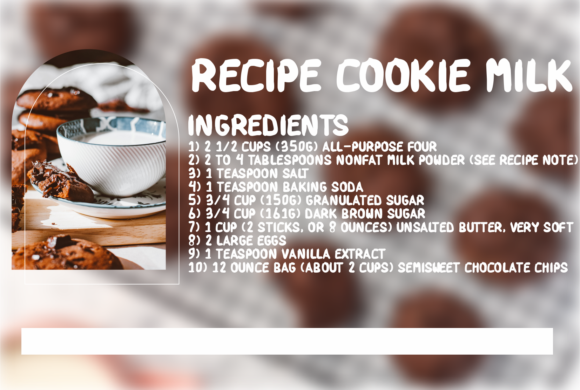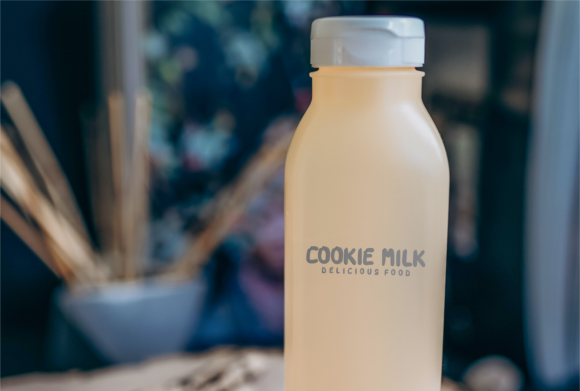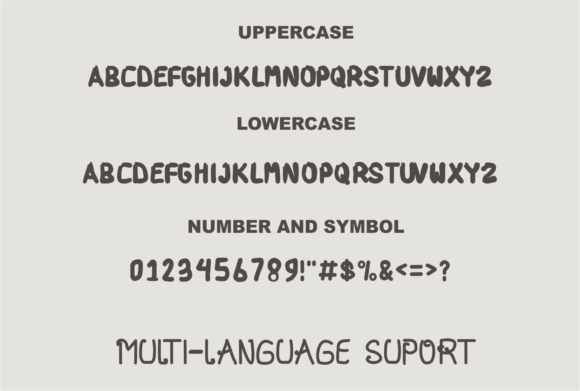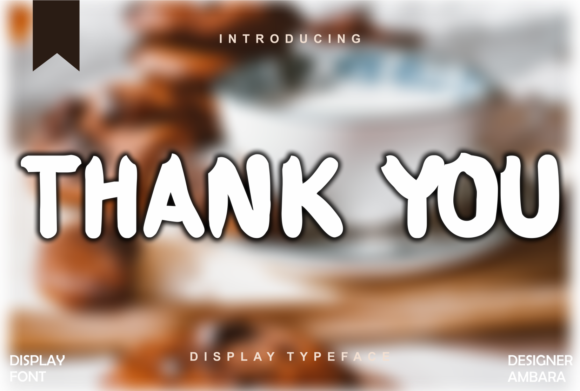
Introducing Cookie Milk Font: The Perfect Addition to Your Foodie Designs
Are you a designer, crafty enthusiast, or food blogger looking for a unique and playful font to elevate your visual creations? Look no further than Cookie Milk Font! This delightful display font is specially crafted for food and beverage products, bringing a touch of whimsy and fun to your designs.
The Perfect Font for Foodies
Cookie Milk Font is an inviting and aesthetically pleasing typeface that is sure to make your designs stand out. Its playful and carefree vibe makes it an ideal choice for a variety of applications, including:
- Bakeries: Add a touch of sweetness to your bakery’s branding, packaging, and marketing materials with Cookie Milk Font.
- Recipe Books: Make your recipe book or cookbook cover stand out with this delightful font.
- Apron Designs: Create fun and functional aprons for cooking enthusiasts with Cookie Milk Font.
- Restaurants and Bars: Use this font to create eye-catching menus, signage, and promotional materials for your food and beverage business.
What Makes Cookie Milk Font So Special?
Cookie Milk Font boasts a range of features that make it a standout choice for designers and crafters:
- Playful and Fun: This font’s playful and carefree design is sure to bring a smile to your audience’s faces.
- Highly Readable: Despite its playful nature, Cookie Milk Font remains highly readable, even at smaller sizes.
- Versatile: Use this font for a wide range of applications, from digital designs to print materials.
- Easy to Pair: Cookie Milk Font pairs well with a variety of other fonts, making it easy to create visually appealing combinations.
Design Inspiration with Cookie Milk Font
To give you a better sense of the design possibilities with Cookie Milk Font, here are a few inspiring ideas:
- Create a mouthwatering menu for a trendy cafe or restaurant.
- Design a set of adorable labels for a bakery or food truck.
- Develop a comprehensive brand identity for a food blogger or influencer.
- Make a statement with a bold and eye-catching apron design.
Tips for Using Cookie Milk Font Effectively
To get the most out of Cookie Milk Font, keep the following tips in mind:
- Use it sparingly: Cookie Milk Font is a display font, so use it sparingly to add emphasis and visual interest to your designs.
- Pair it with contrasting fonts: Combine Cookie Milk Font with contrasting fonts to create visual interest and hierarchy.
- Experiment with colors: Play around with different color schemes to find the perfect match for your design and brand.
Cookie Milk Font is a delightful and versatile typeface that is sure to bring a touch of fun and whimsy to your designs. Whether you’re a designer, crafty enthusiast, or food blogger, this font is perfect for creating visually appealing and engaging visual content. So why wait? Download Cookie Milk Font today and start creating your own sweet designs!